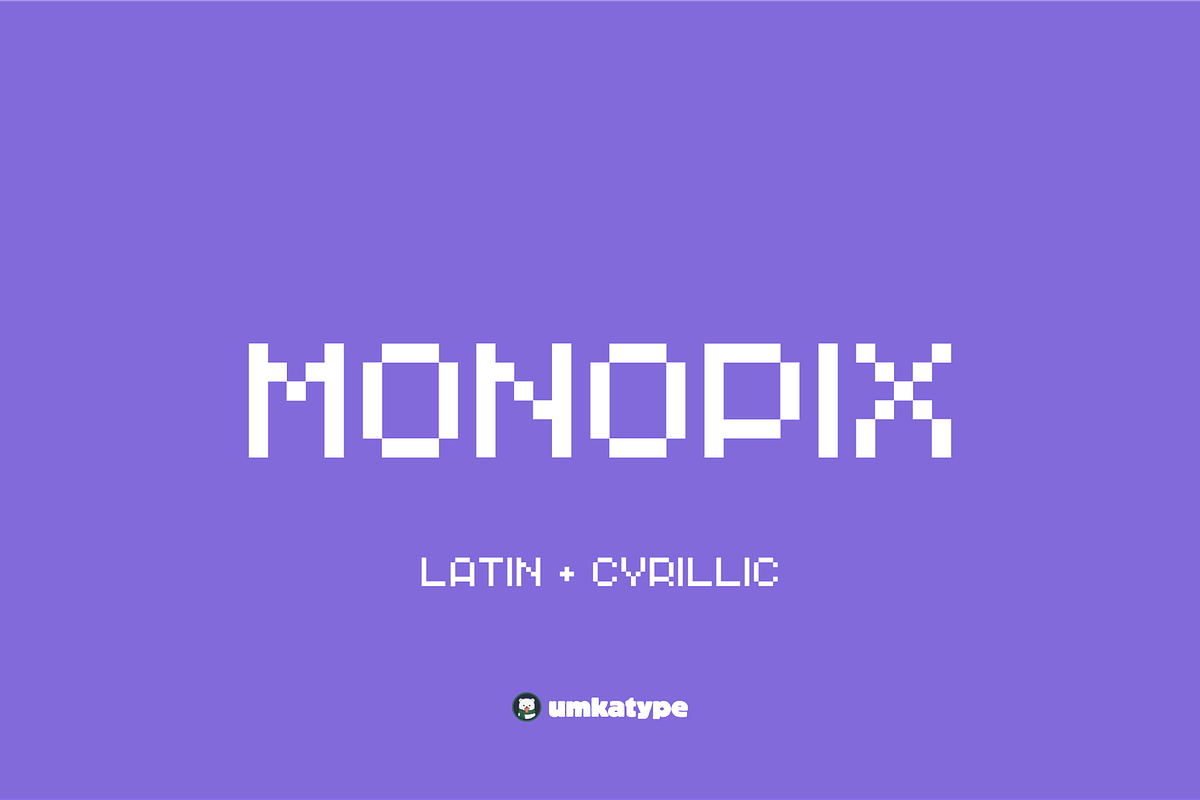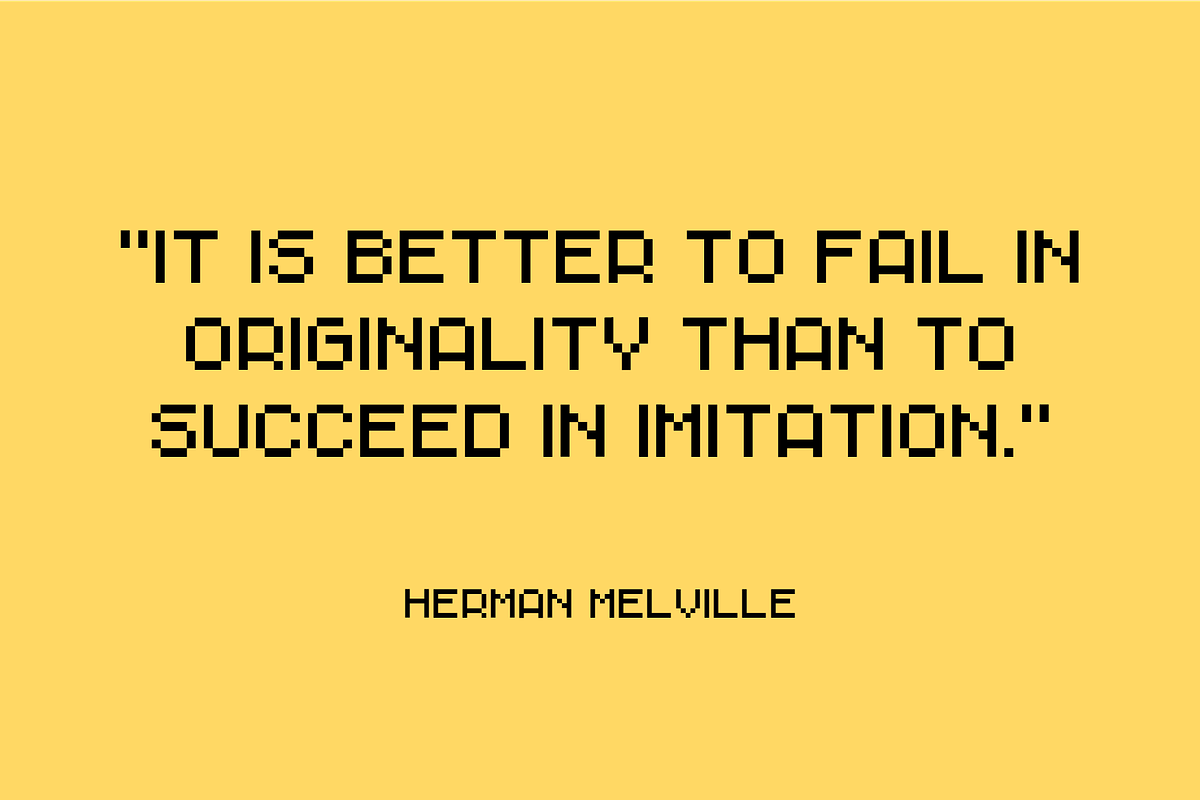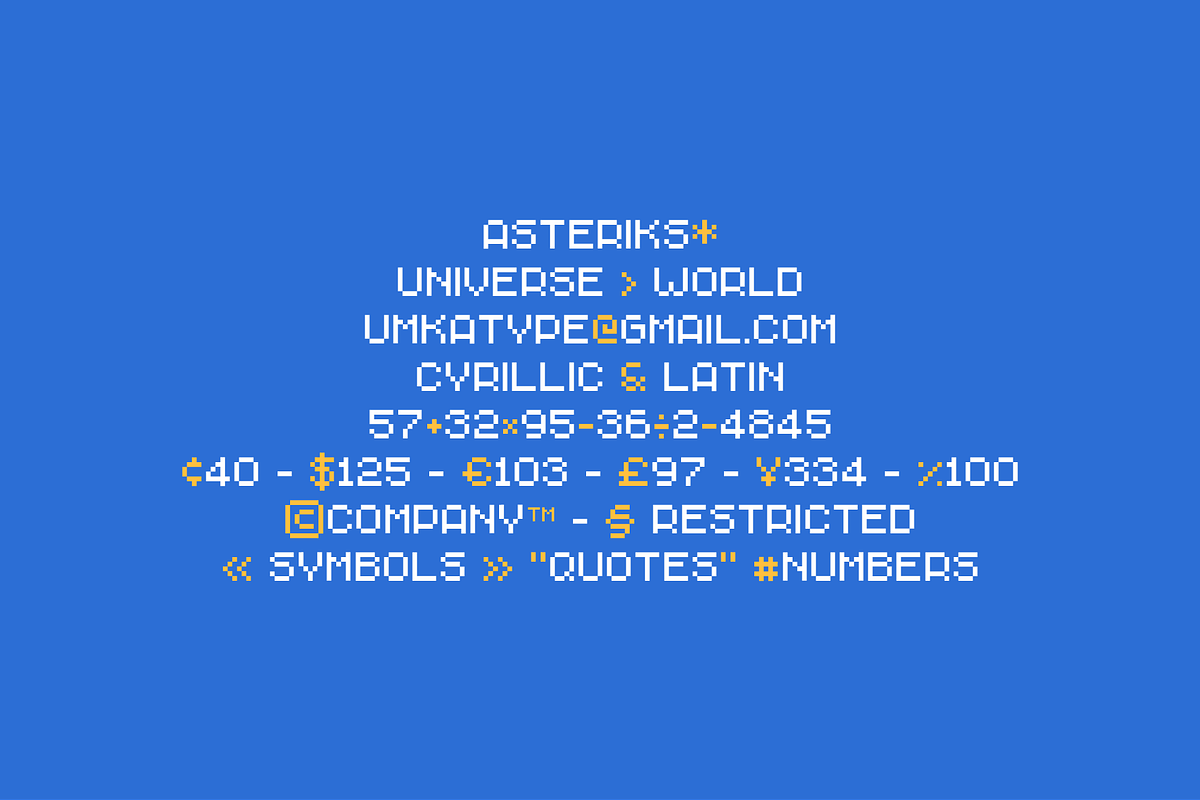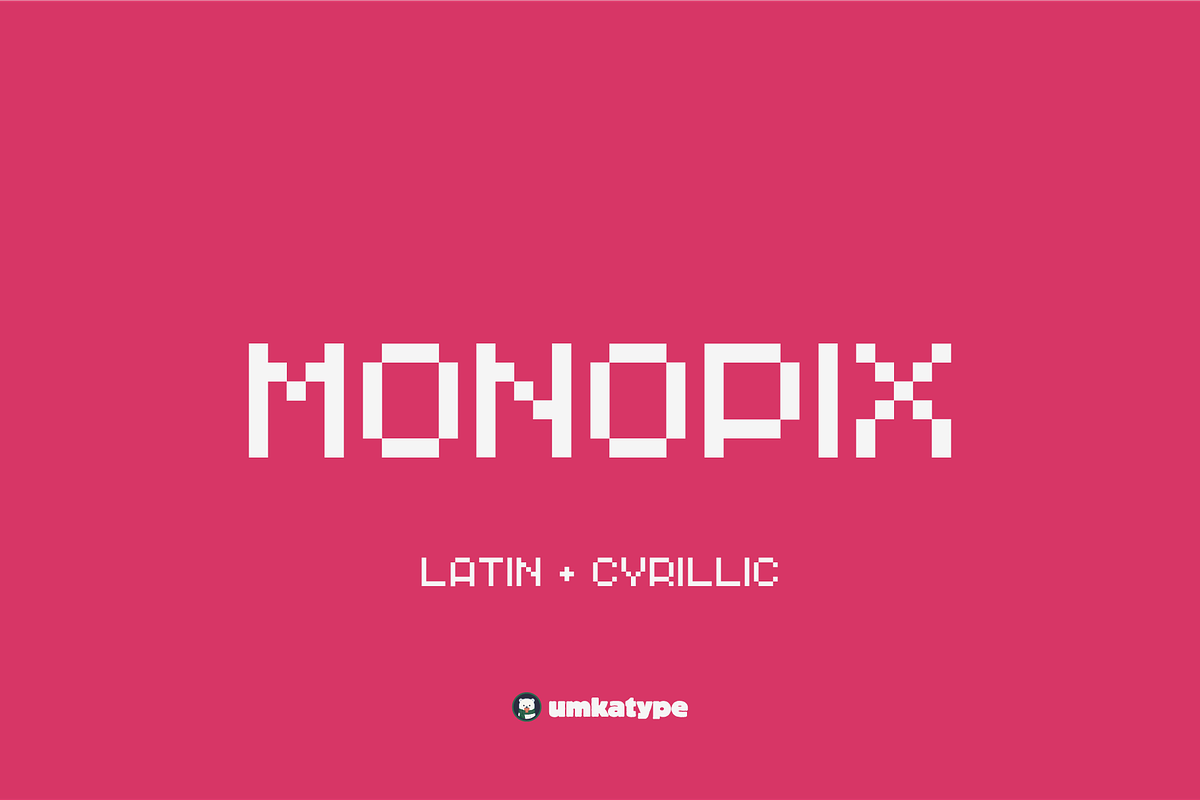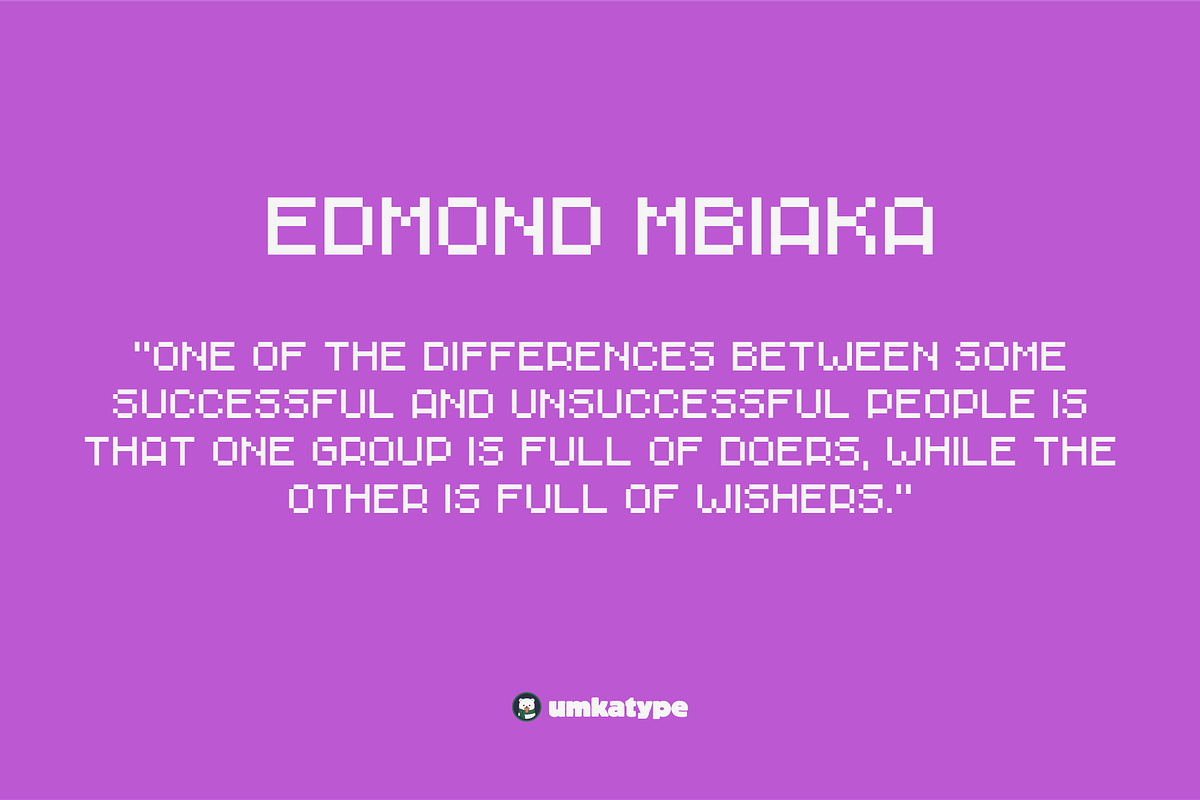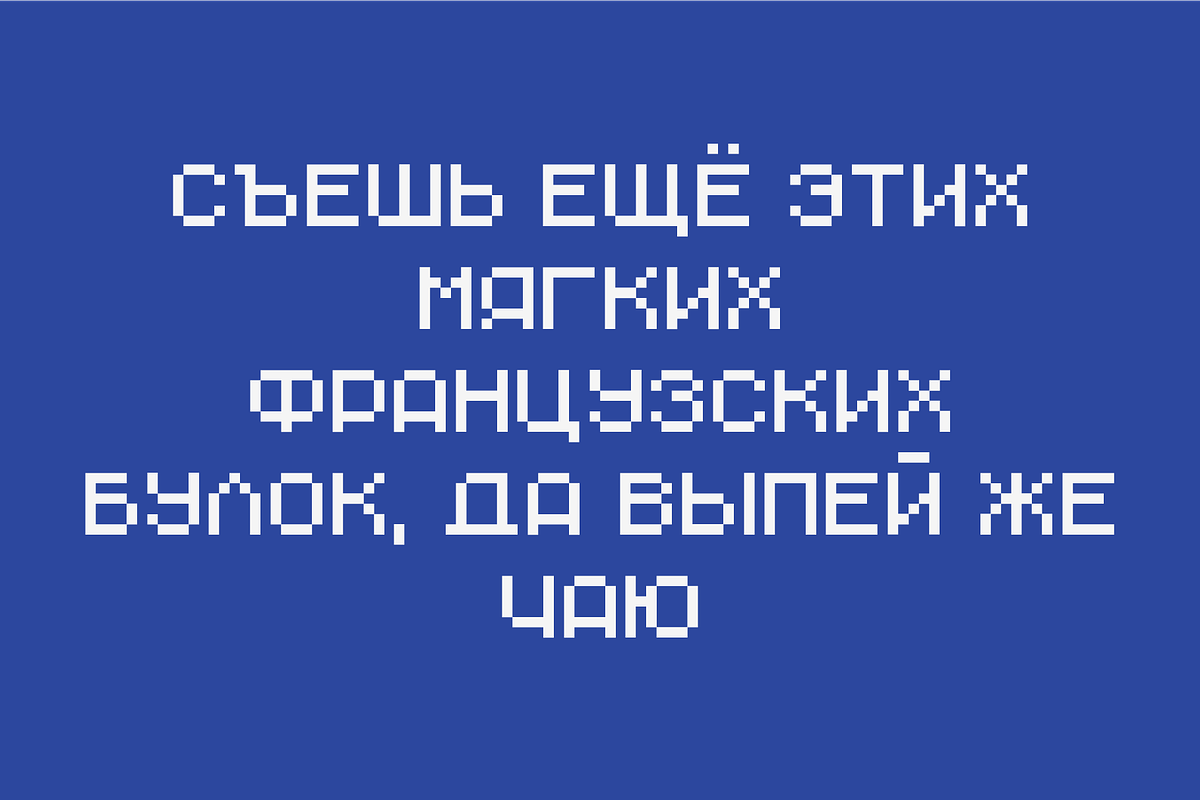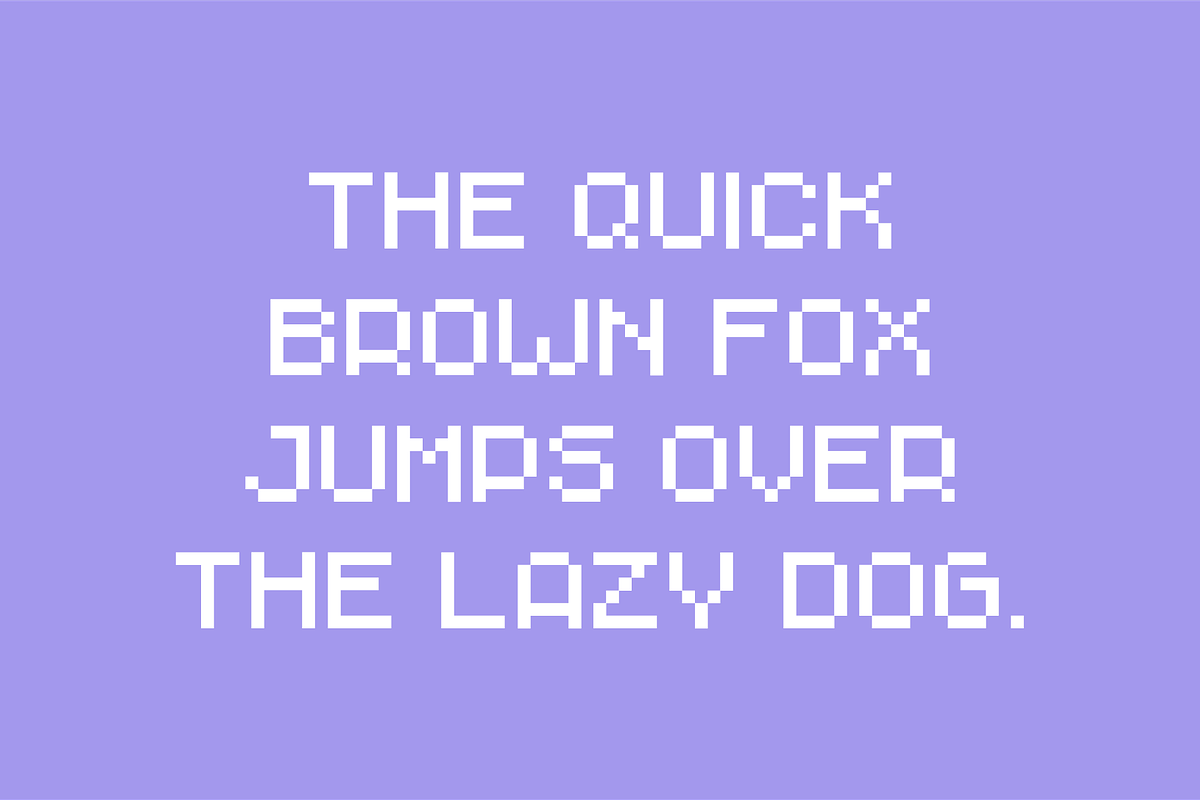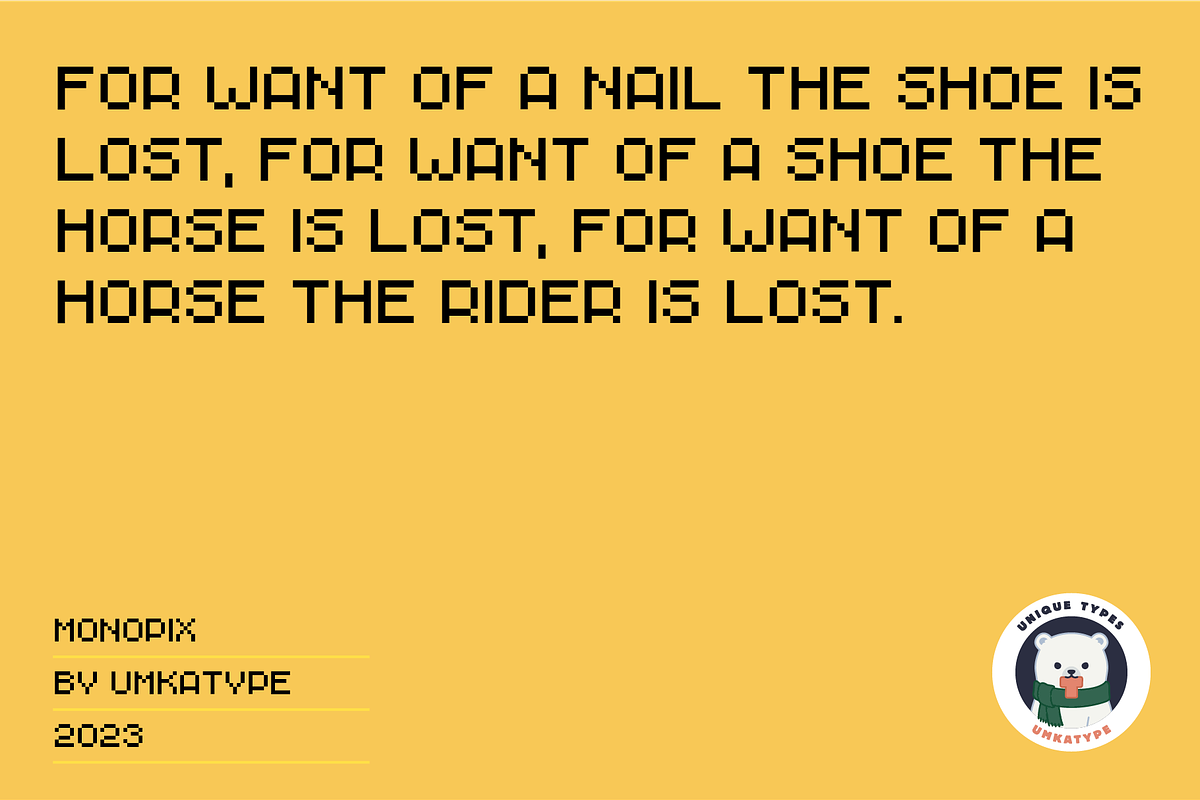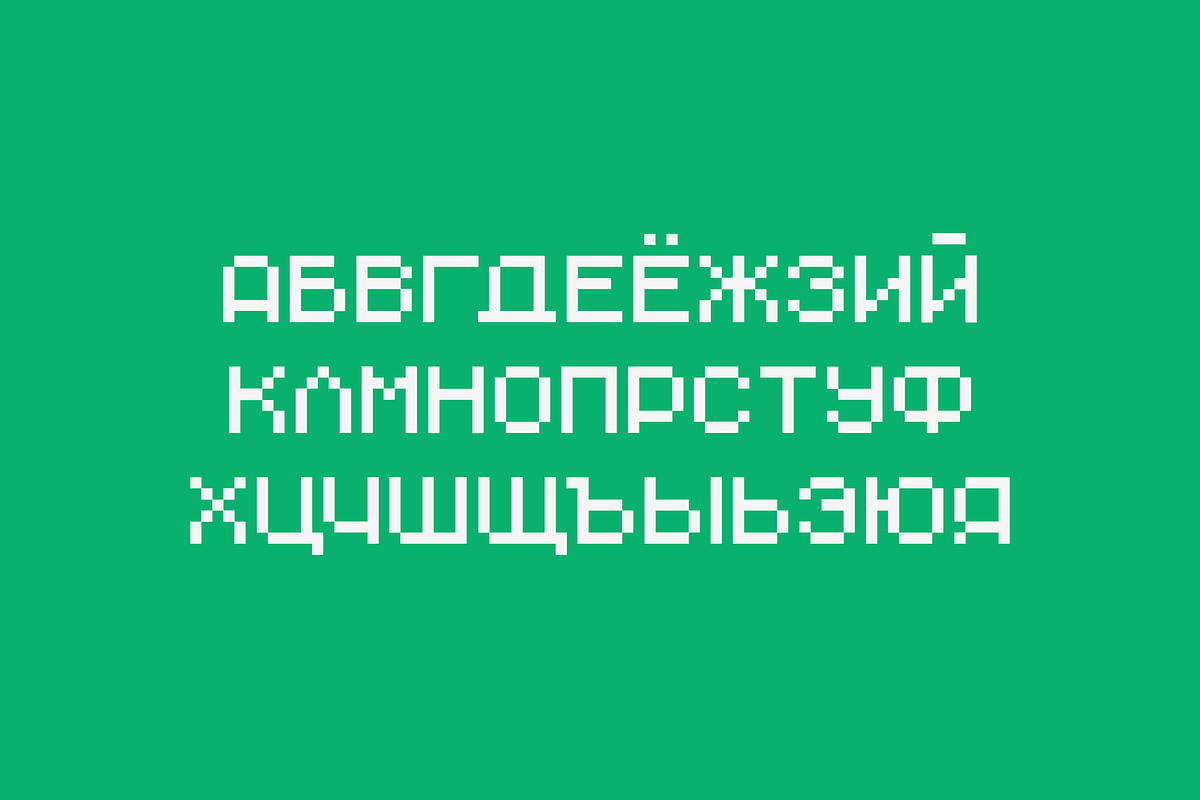
Monopix Pixel Game Font
Monopix - Pixel Game Font
- Monopix is a carefully crafted font.
- Multilingual: It has Extended Latin and Extended Cyrillic letters.
Monopix created for games, web design, branding and social media works.
Language support:
Asu • Bemba • Bena • Bulgarian • Cebuano • Chiga • Cornish • English • Erzya • Gusii • Hebrew • Ido • Indonesian • Interlingua • Jju • Kalenjin • Kinyarwanda • Lojban • Luo • Luyia • Machame • Makhuwa-Meetto • Makonde • Malay • Morisyen • North Ndebele • Nyankole • Oromo • Rombo • Rundi • Russian • Rwa • Samburu • Sangu • Shambala • Shona • Soga • Somali • South Ndebele • Southern Sotho • Swahili • Swati • Taita • Taroko • Teso • Tsonga • Vunjo • Xhosa • Zulu